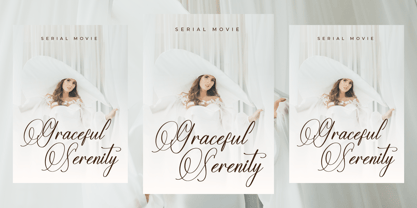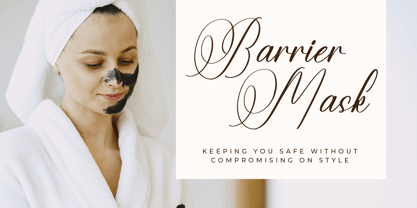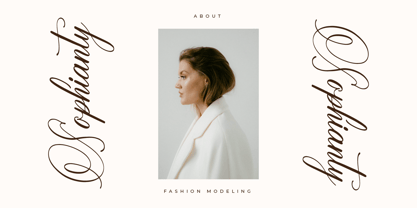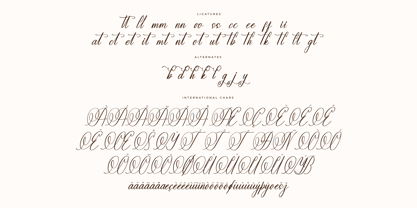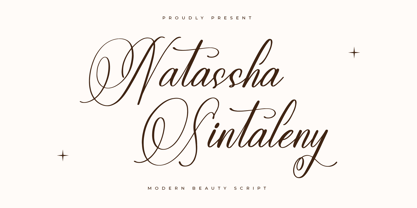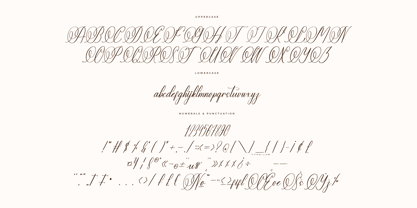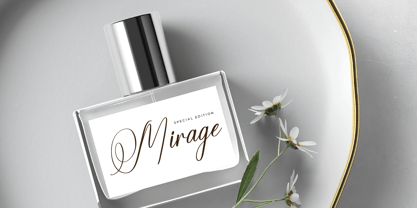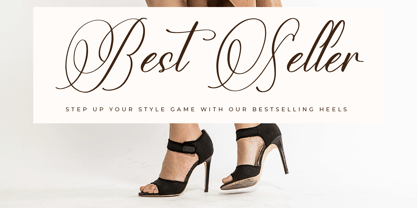
Natassha Sintaleny
by Letterena Studios
The Natassha Sintaleny Font Family was designed by Heru Utama Putra and published by Letterena Studios. Natassha Sintaleny contains 1 styles. More about this family
Natassha Sintaleny is a dazzling script font exuding elegance and sophistication. Its graceful strokes and intricate details captivate the eye, making it perfect for wedding invitations, branding, and elegant designs. With its timeless appeal and delicate curves, this font adds a touch of luxury to any project.